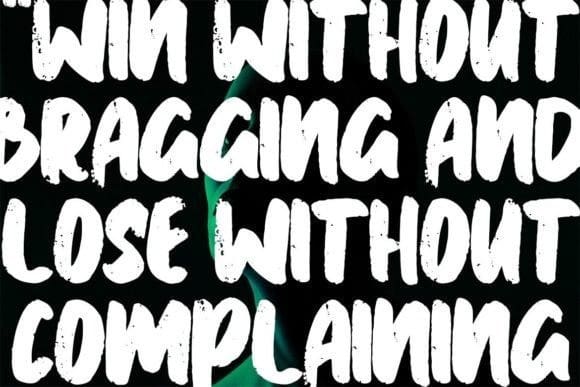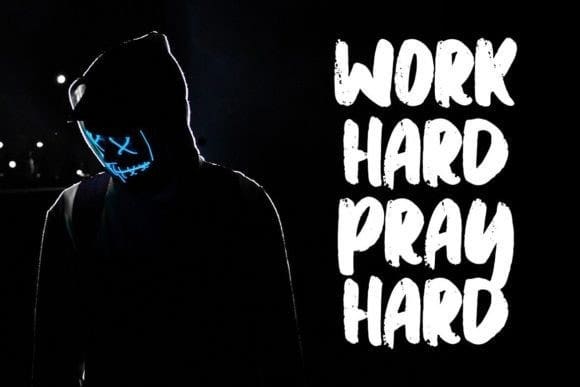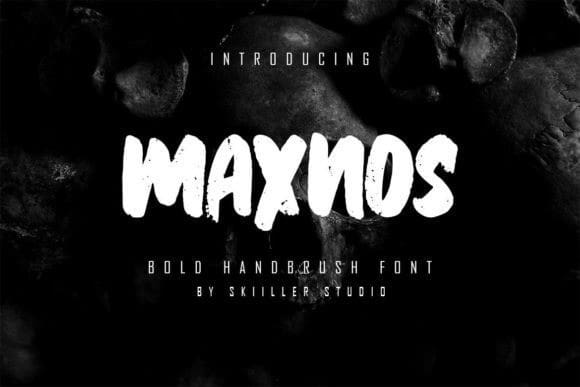
Maxnos Brush Font
Maxnos Brush Font was inspired by the typography of natural brushes. Written in quick motion using a brush pen, it’s a bit dry and looks realistic. It is suitable for commercial needs or magazine fashion design, logos, product packaging, headlines, posters, merchandise, social media & other greeting cards.